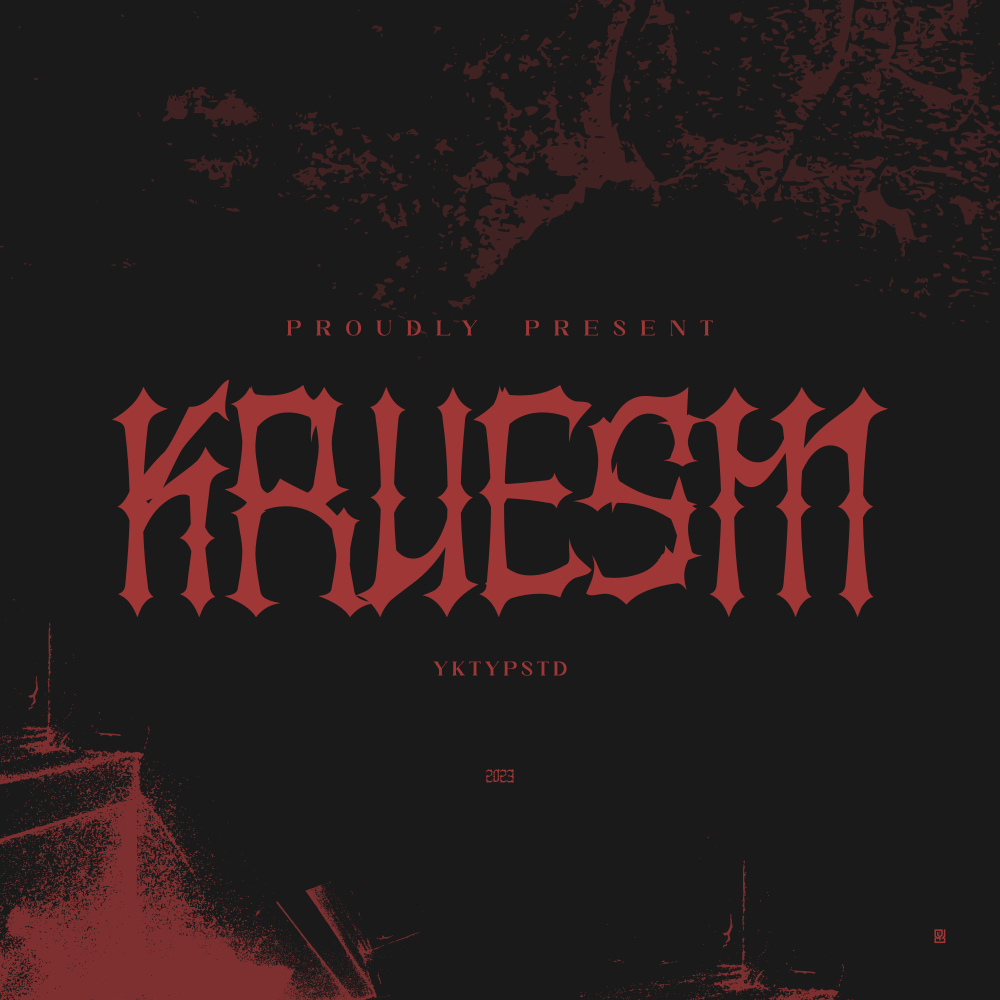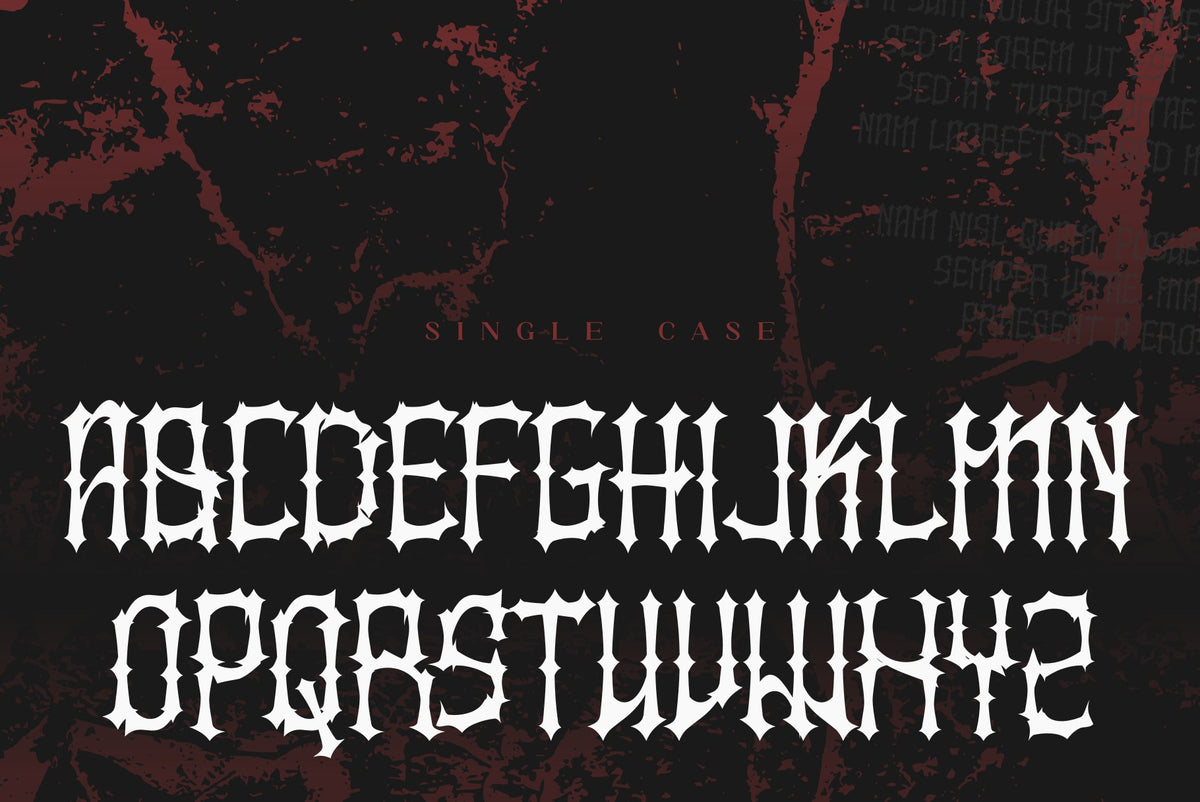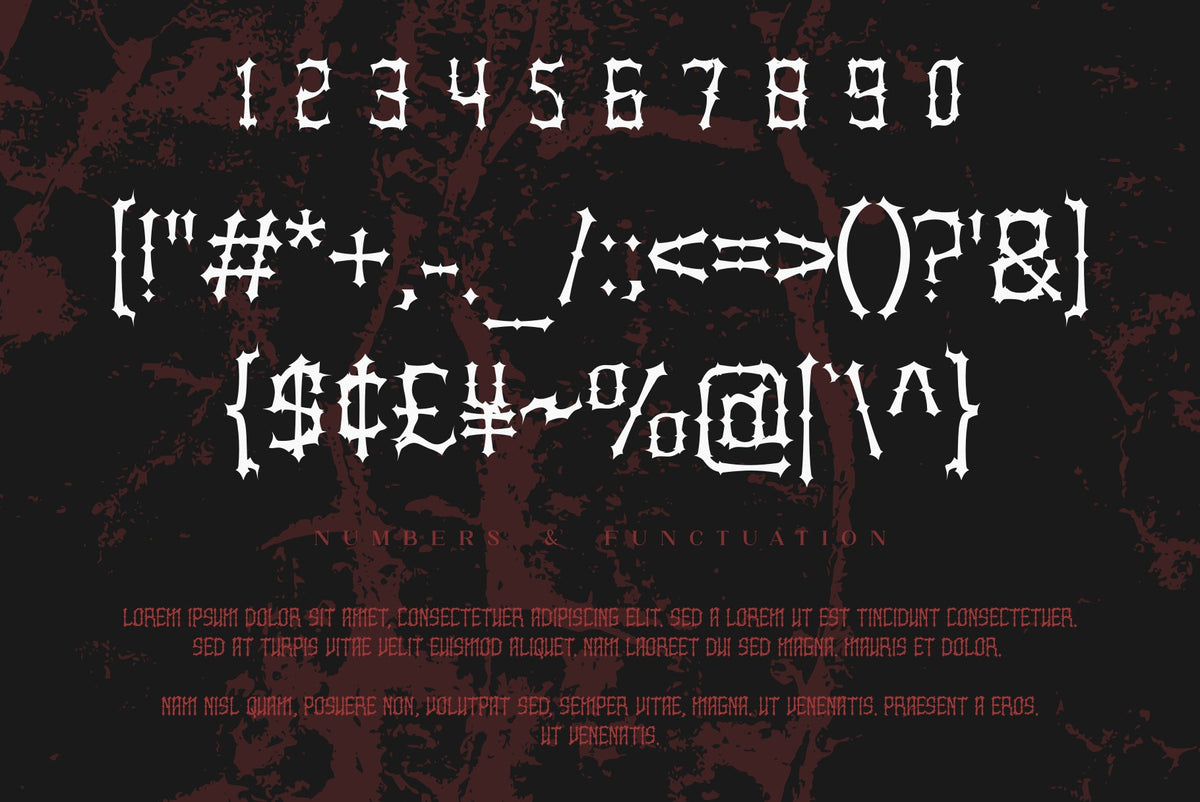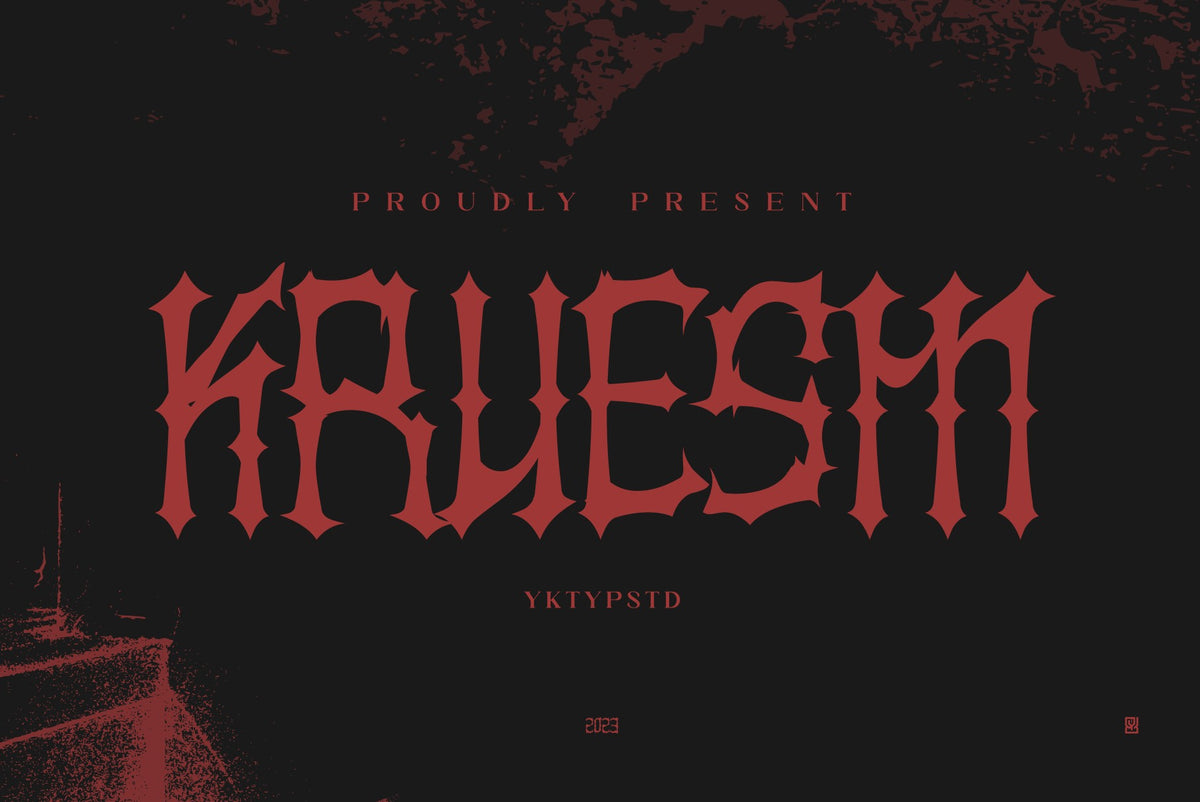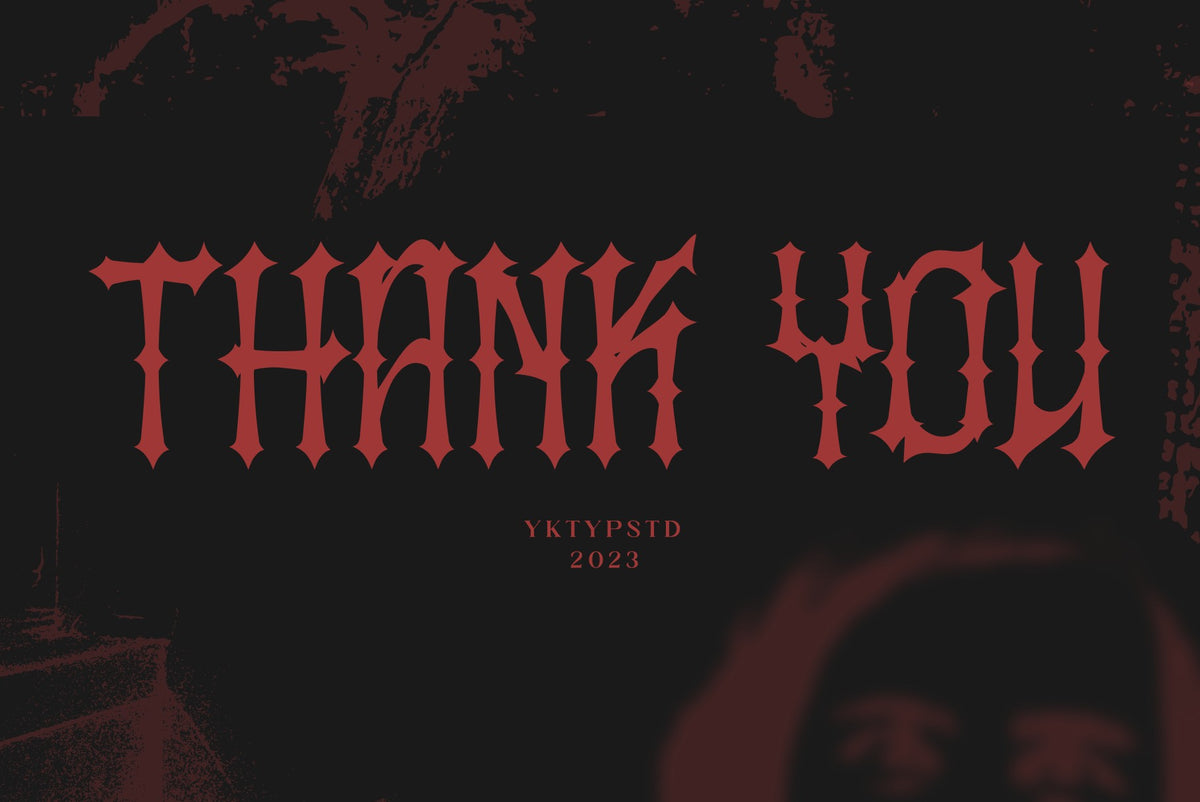
Kruesm - Horror Display Font
Kruesm is the horror display font that turns any design into something genuinely terrifying.
Unleash an eerie, unsettling vibe with Kruesm — a spine-tingling typeface built for designers who want their work to disturb, haunt, and captivate. Whether you're crafting ghastly posters, haunting Halloween invitations, or any project demanding a dose of dark intrigue, Kruesm delivers the dread.
All caps characters (A–Z)
Kruesm is a horror-style display font featuring all caps characters (A–Z), numbers, and punctuation. It is available in OpenType (.otf) and TrueType (.ttf) formats.